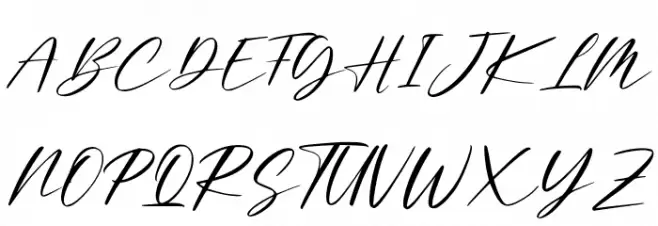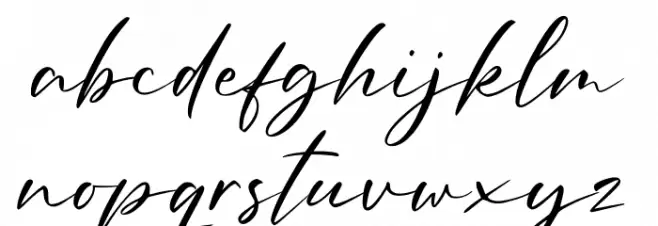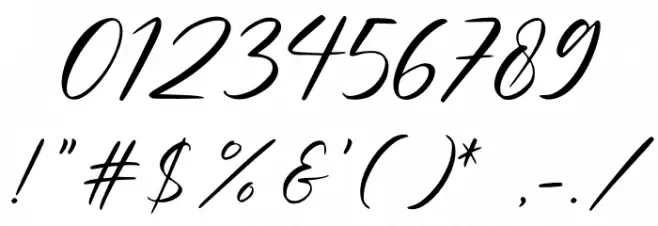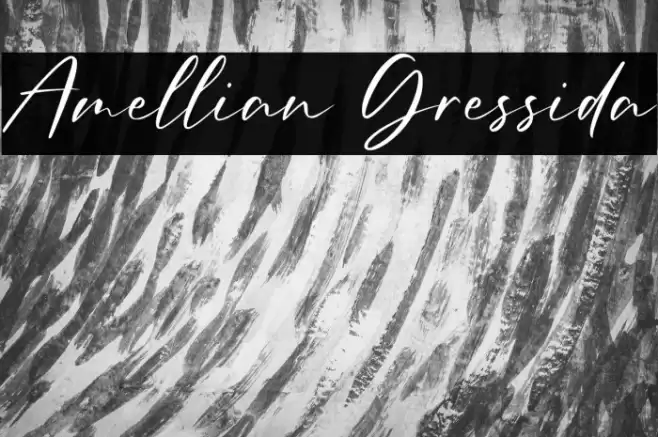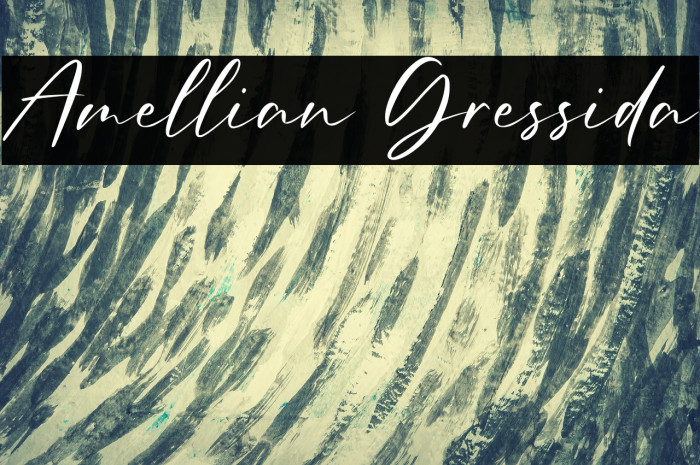
Amellian Gressida Font
Amellian Gressida Description
This font features a flowing, cursive style that exudes elegance and sophistication. The characters are connected with smooth, sweeping strokes, giving it a handwritten appearance. The uppercase letters are bold and dynamic, while the lowercase letters maintain a consistent flow, enhancing readability. Numbers and special characters are designed to match the overall aesthetic, with a slight slant that adds to the fluidity. The font's design is both modern and timeless, making it versatile for various applications.
A flowing, elegant cursive font with a modern handwritten style.
- Proposed Projects: Ideal for wedding invitations, branding, logos, and elegant stationery.